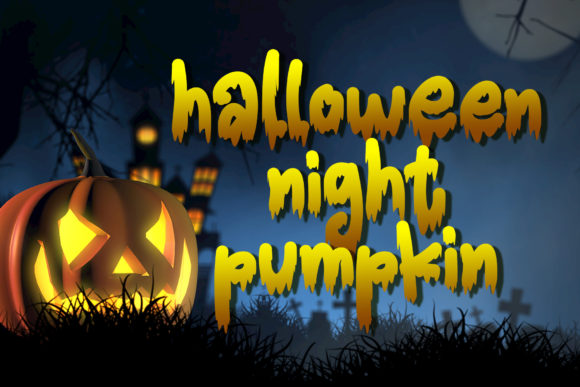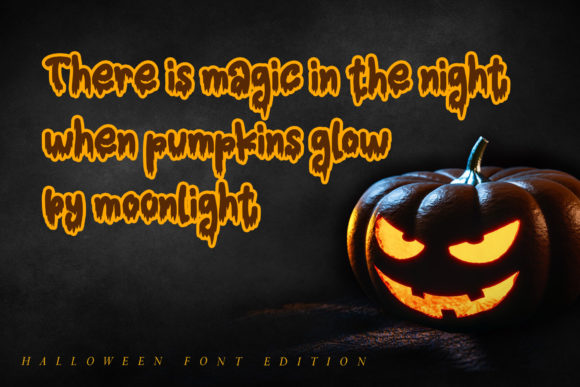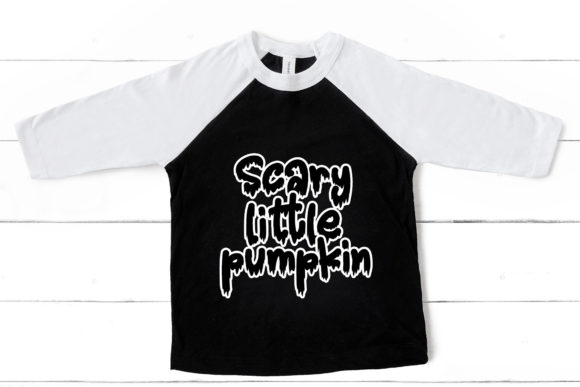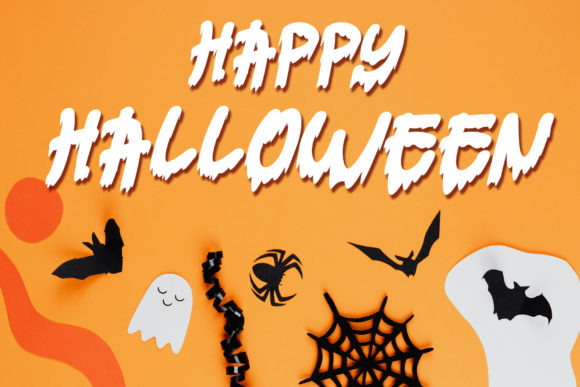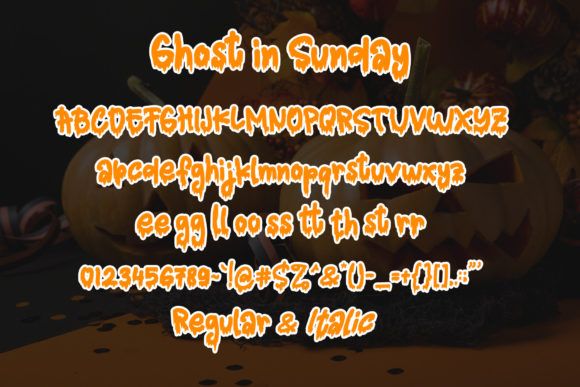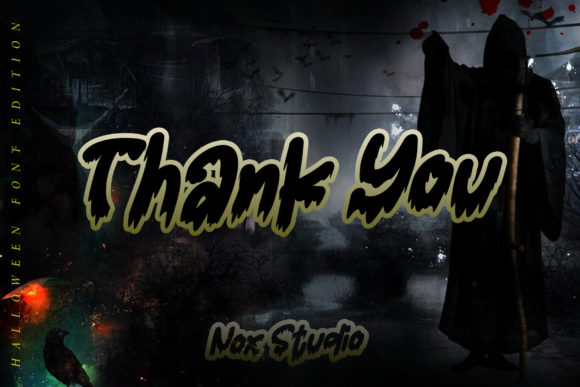
Unleash the Spook: Exploring the Ghost in Sunday Font
As the witching hour approaches and Halloween creeps around the corner, designers and crafters are on the lookout for the perfect typography to add a spine-tingling touch to their creations. If you’re searching for a font that embodies the eerie and mysterious essence of the season, look no further than the Ghost in Sunday font. This creepy and spooky display font is sure to send shivers down the spines of your audience, making it an ideal addition to your Halloween projects.
The Ghost in Sunday Font: A Hauntingly Beautiful Typeface
Ghost in Sunday is a unique and eye-catching display font that boasts an unmistakably spooky vibe. Its hauntingly beautiful design makes it perfect for use in a variety of Halloween-themed projects, from invitations and posters to social media graphics and more. The font’s distressed and worn appearance gives it a delightfully eerie feel, as if the letters themselves are rising from the grave to haunt your designs.
Key Features of the Ghost in Sunday Font
- Creepy and Spooky Design: The Ghost in Sunday font features a hauntingly beautiful design that’s sure to add a touch of spookiness to your Halloween creations.
- Distressed and Worn Appearance: The font’s distressed and worn appearance gives it a delightfully eerie feel, perfect for adding a sense of mystery and intrigue to your designs.
- Display Font: Ghost in Sunday is a display font, making it perfect for use in headlines, titles, and other large-format text applications.
Using the Ghost in Sunday Font in Your Designs
Tips for Using the Ghost in Sunday Font
- Pair with Other Halloween-themed Elements: Combine the Ghost in Sunday font with other Halloween-themed elements, such as spooky graphics and images, to create a cohesive and eye-catching design.
- Experiment with Different Colors: Don’t be afraid to experiment with different colors and textures to add depth and interest to your design.
- Use in Conjunction with Other Fonts: Consider pairing the Ghost in Sunday font with other fonts to create a unique and visually appealing design.
Inspiration for Using the Ghost in Sunday Font
Need some inspiration for using the Ghost in Sunday font in your designs? Here are a few ideas to get you started:
- Halloween Invitations: Use the Ghost in Sunday font to create spooky and eye-catching invitations for Halloween parties and events.
- Social Media Graphics: Add a touch of spookiness to your social media graphics with the Ghost in Sunday font.
- Posters and Flyers: Use the font to create eye-catching posters and flyers for Halloween-themed events and attractions.